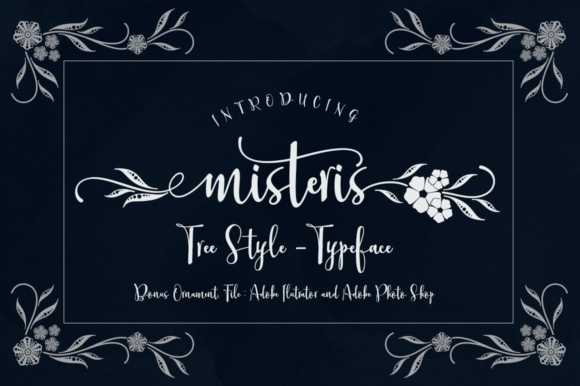
Journey into the world of calligraphy with Misteris Font, a handcrafted script font that exudes style and elegance. Let your words dance across the page with this enchanting font, meticulously crafted by Groens Studio. Prepare to be mesmerized by its intricate details and graceful curves, designed to capture the essence of timeless beauty.
With Misteris Font, your designs will radiate sophistication and charm. Its flowing lines evoke a sense of movement and fluidity, while its delicate flourishes add a touch of whimsy and playfulness. Whether you're a seasoned designer or just starting, Misteris Font is the perfect choice to elevate your projects to new heights of creativity.
Unlock the full potential of your blog with Misteris Font. Its versatility knows no bounds, adapting seamlessly to a wide range of design styles and themes. From fashion and lifestyle to travel and food, Misteris Font will effortlessly enhance your content, making your words shine brighter than ever before.
Step into the spotlight and let your blog stand out from the crowd. Embrace the power of Misteris Font and watch as your audience becomes captivated by your visually stunning content. With this font, your blog will exude an air of sophistication and professionalism, leaving a lasting impression on every reader.
Embrace the art of beautiful typography with Misteris Font. Its PUA encoding ensures effortless access to a world of glyphs and swashes, opening up endless possibilities for customization. Unleash your creativity and let your imagination soar as you explore the depths of this versatile font.
Experience the allure of Misteris Font today and embark on a creative journey like no other. Transform your designs and elevate your blog to new heights of sophistication. Let the beauty of calligraphy guide your words and captivate your audience with every stroke of the pen.